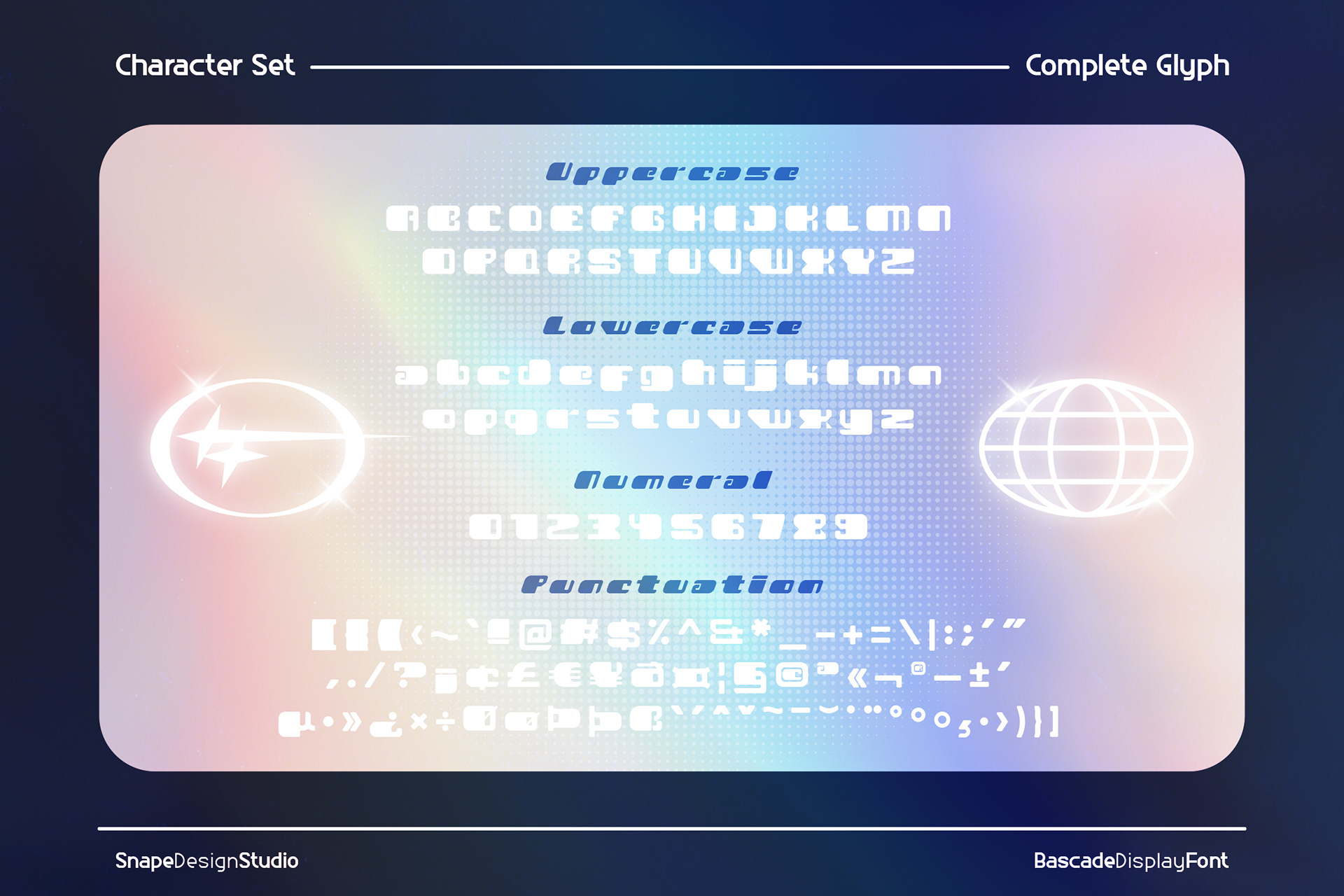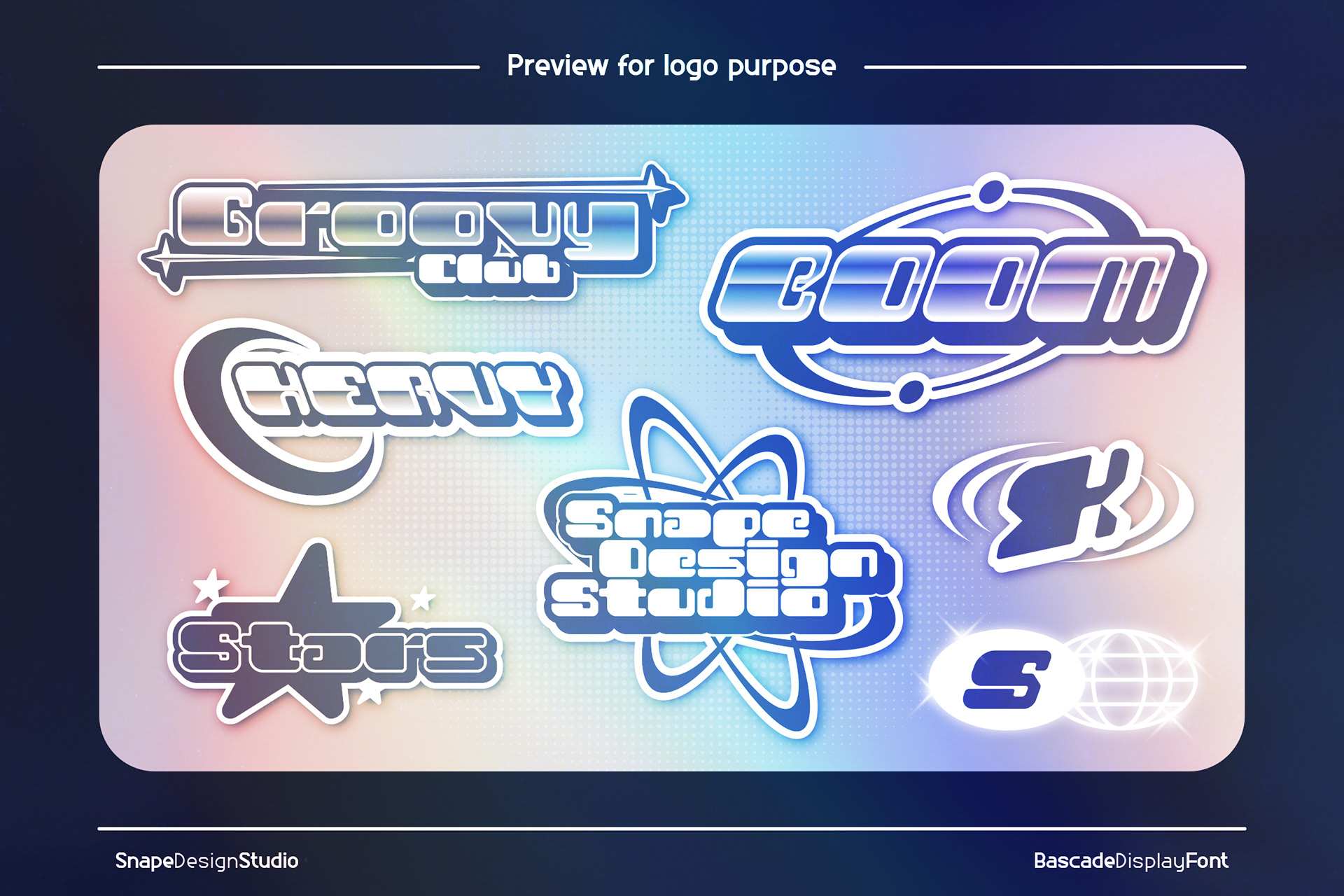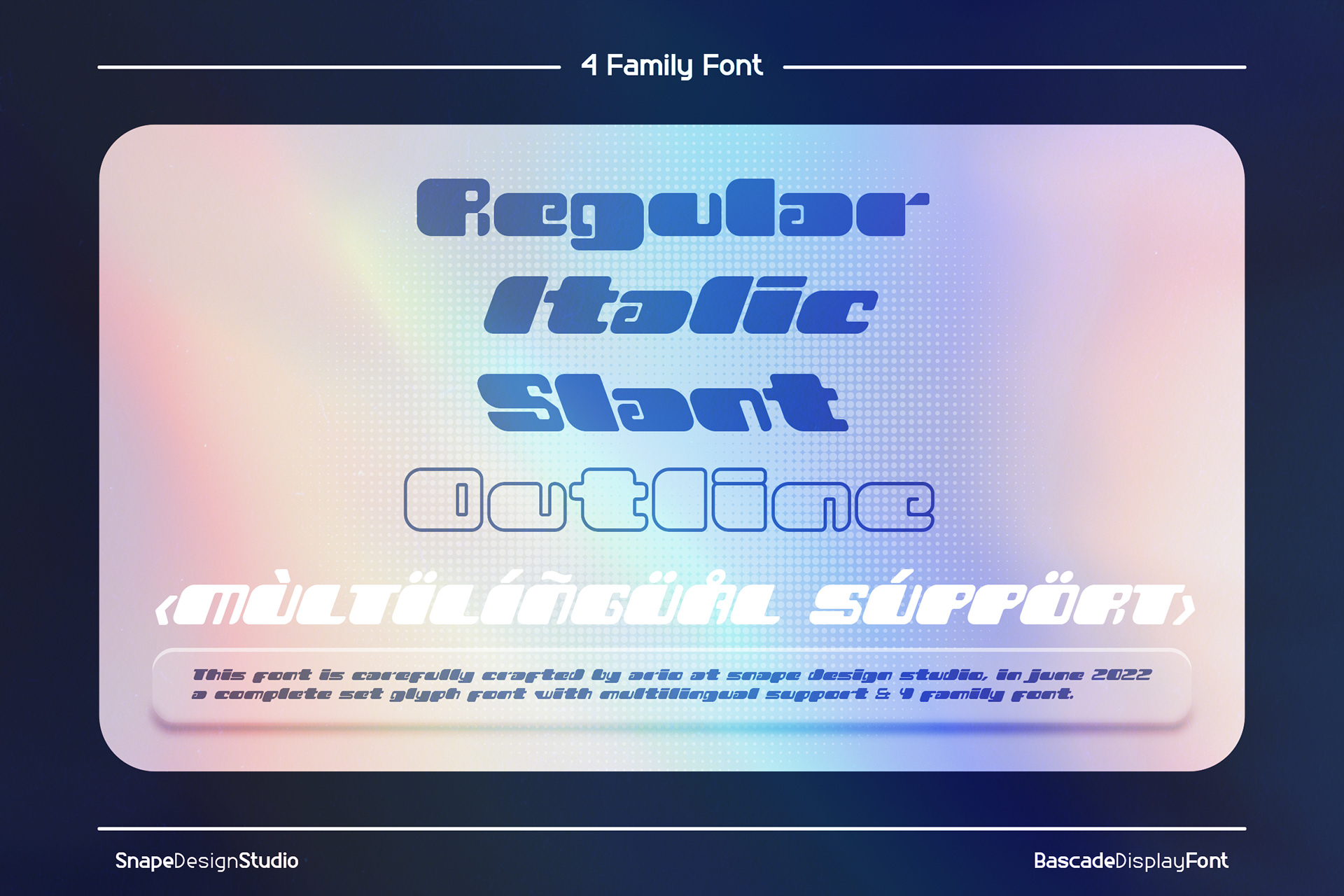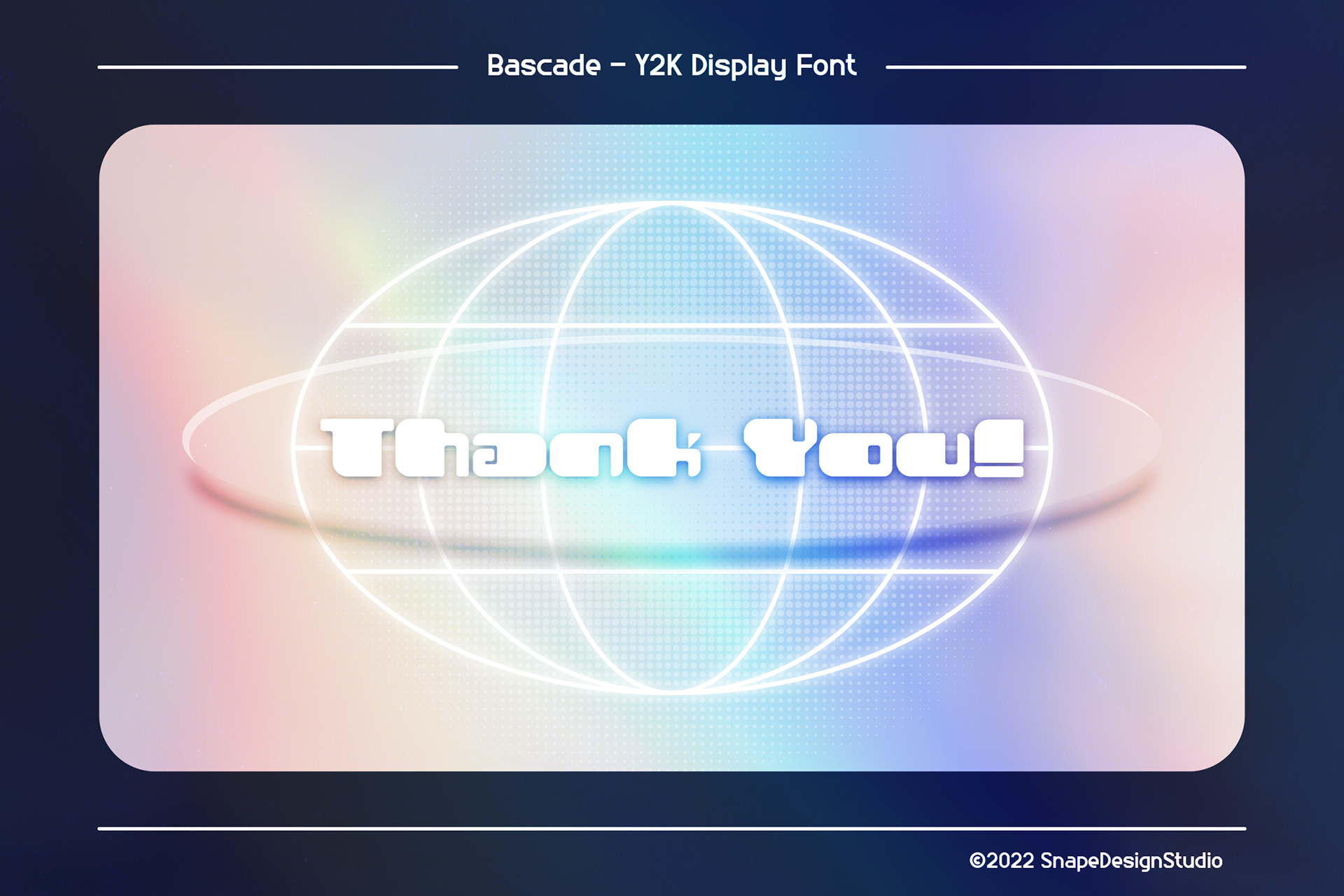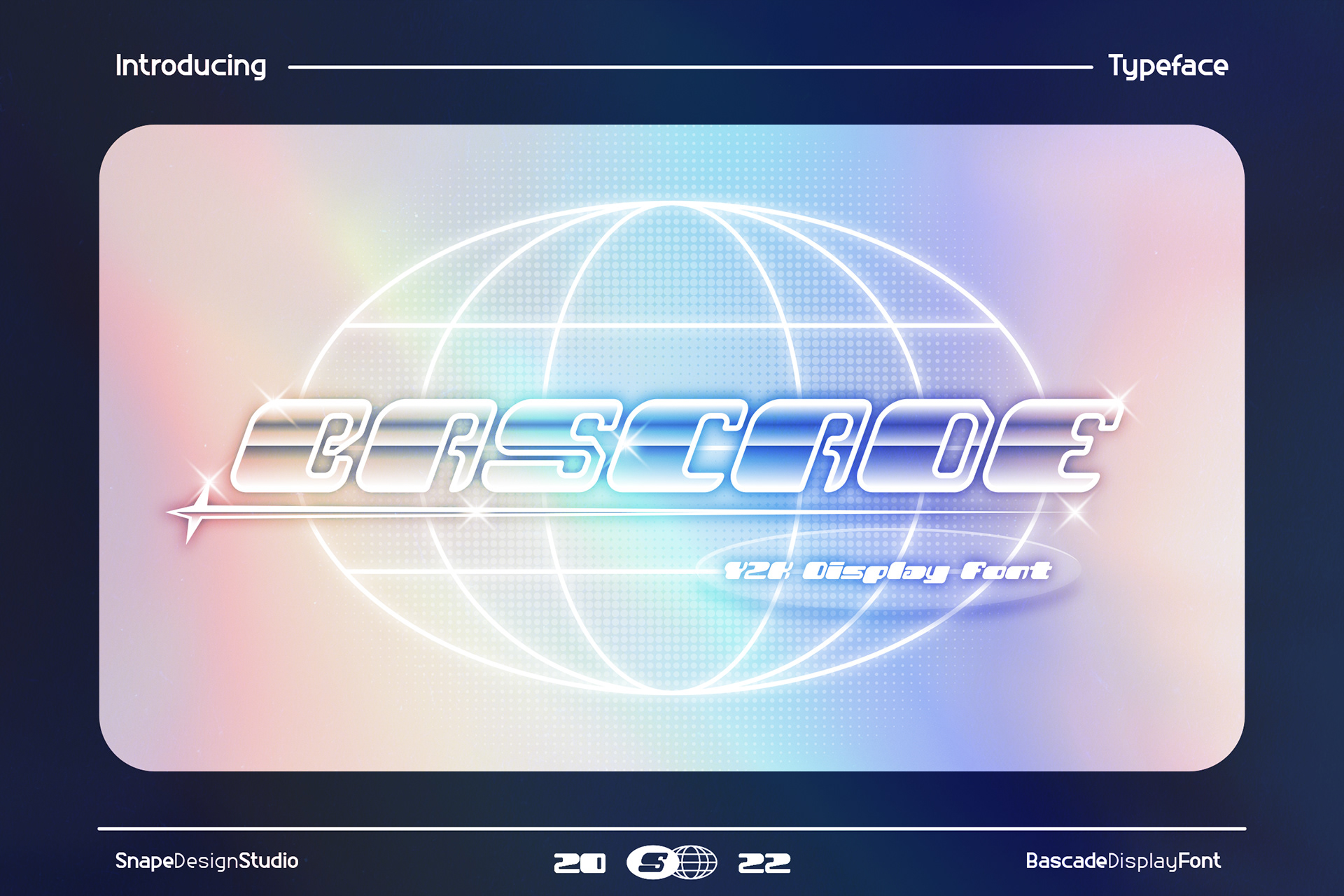
Bascade is a futuristic font. Heavy influence by Y2K design era through music and their pop culture, perfect for technology, digital, space galaxy theme. Also suitable for movie, documenter, film, logo, poster, game, book cover, headlines, title and many more projects. Add this font to your creative ideas and notice how it will make them stand out!